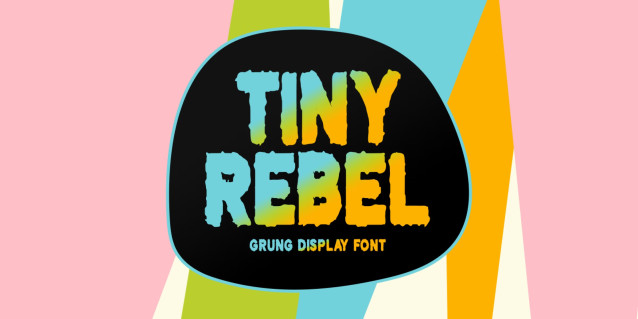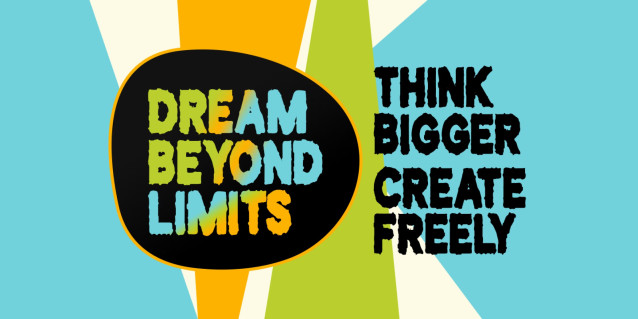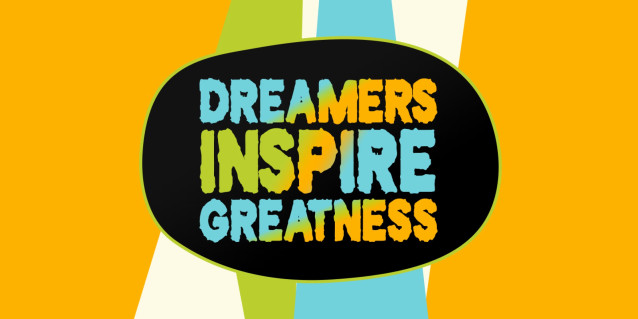
Tiny Rebel Font
Tiny Rebel is a bold grunge display font crafted to make every design loud, playful, and unforgettable. Its rough edges and handcrafted texture bring raw personality to posters, branding, apparel, packaging, headlines, social media graphics, and creative projects. Perfect for designers seeking an energetic, rebellious, eye-catching, and expressive typography style.